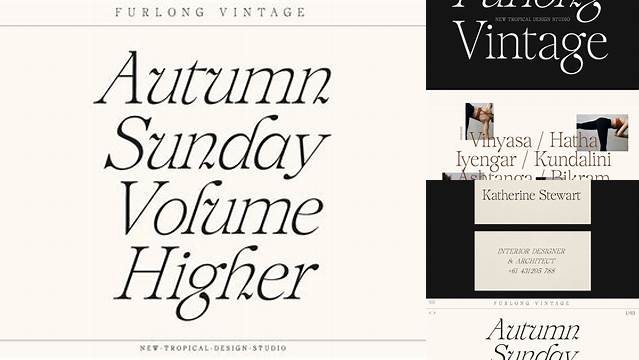
Hey everyone! 👋 Today, we're diving headfirst into the wonderful world of typography and, specifically, the ever-popular Furlong Vintage Font. This article is your ultimate guide to snagging the Furlong Vintage Font for free, understanding its charm, and unleashing its potential in your creative projects. Whether you're a seasoned designer, a newbie enthusiast, or just someone curious about cool fonts, you're in the right place. So, buckle up, and let's get started!
1. What Makes the Furlong Vintage Font Special? ✨
Alright, guys, let's talk about what makes the Furlong Vintage Font so darn appealing. It's got that classic, timeless vibe that instantly adds a touch of nostalgia and sophistication to any design. Think old-school signage, retro posters, and anything with a handcrafted feel. The font itself is designed to evoke a sense of the past, with its carefully crafted letterforms and unique character. It's not just a font; it's a statement. The Furlong Vintage Font comes packed with a variety of styles, allowing for flexibility in your projects. You can use it for headlines, body text, logos, and branding materials. Its versatility is one of its strongest assets. With its distinct serifs and slightly condensed appearance, it offers a perfect balance between legibility and stylistic flair. This means your text will be easy to read while still looking incredibly stylish. The Furlong font embodies the spirit of vintage design with a modern twist. It is perfect for capturing the essence of a bygone era while still remaining contemporary. The design inspiration behind the Furlong Vintage Font is rooted in the aesthetics of classic typography. It draws inspiration from vintage posters, advertisements, and signage from the early to mid-20th century. Its creators paid meticulous attention to detail, ensuring every curve and line contributes to its overall vintage feel. When you download and use the Furlong Vintage Font, you're not just getting a font. You're getting a piece of design history. This font breathes life into your projects, creating a sense of authenticity and visual appeal. The meticulous design of Furlong allows it to create a strong impact while remaining approachable. Its versatility makes it appropriate for both small snippets of text and large display headers. The Furlong Vintage Font is more than just a font; it is a design tool that helps communicate with your audience in a way that resonates with a sense of nostalgia and craftsmanship. The elegance and charm of the Furlong Vintage Font is what makes it really stand out from other fonts. The creators have put in a lot of effort to capture the essence of vintage design, with its character to bring charm and sophistication into the modern designs. This font is suitable for making your creative projects stand out. Overall, the Furlong Vintage Font is a great way to inject that vintage feel into your designs and is a fantastic addition to any designer's toolkit.
3. Exploring the Different Styles of Furlong Vintage Font 🎨
Okay, so you've found the Furlong Vintage Font and are ready to roll. But did you know it usually comes in different styles? This versatility is one of the things that makes the font so great. Typically, you'll find it in a few distinct variations, allowing you to tailor your typography to the specific needs of your project. You might find a regular style, which is your basic, go-to version. It provides a clean, readable base for your text. Then there's often a bold version, perfect for headlines and emphasis. Its thicker strokes make it really pop, grabbing the reader's attention. You might also find a condensed or a more extended version of the font, which affects the letter spacing and overall appearance. Condensed styles work great for tight spaces, whereas extended styles can give a more spacious feel. The beauty of these different styles is that they let you create visual hierarchies and add depth to your designs. You can use different styles of the Furlong Vintage Font to create a sense of visual interest, helping to guide the viewer's eye and highlight important elements. When you're choosing your style, think about the overall tone of your project. For example, a regular style might be ideal for body text, providing a simple and readable foundation. Meanwhile, a bold style would be great for attention-grabbing headlines or calls to action. The various styles available in the Furlong Vintage Font allow you to adapt its look to fit different design needs. Whether you're creating a logo, a poster, a website, or any other creative project, having different styles gives you the flexibility you need to make your vision a reality. Don't hesitate to experiment with different styles to discover what works best for your project. There is a great chance you will be amazed at the variety of designs that you can produce from the Furlong Vintage Font.
3.1 Furlong Vintage Font Regular
The Furlong Vintage Font Regular is the foundational style of this classic typeface. It's the bread and butter, the workhorse of your design toolkit, providing a clean and consistent look that's perfect for a variety of applications. This style typically features a standard weight and letter width, making it easily readable in a wide range of sizes. It is designed to offer a perfect balance between elegance and readability. It allows you to create beautiful and clear designs without sacrificing the classic vintage feel. The Furlong Vintage Font Regular is well-suited for body text, ensuring that your message is easily accessible and enjoyable to read. It can also be used for headings and subheadings, providing a subtle yet impactful visual hierarchy. The primary characteristic of the Furlong Vintage Font Regular is its timeless aesthetic. The design captures the essence of vintage typography while remaining adaptable to modern design needs. The clean lines and traditional letterforms add a touch of sophistication. This makes it a versatile option for various projects. Whether you are working on a website, a poster, or any other type of creative project, this font style provides a reliable and elegant base. The Furlong Vintage Font Regular stands out because it offers a high degree of legibility and sophistication, providing a balanced combination of usability and visual charm. This style is appropriate for any context, whether you are building a brand or designing invitations. With the Furlong Vintage Font Regular, you get a consistent and pleasing aesthetic that gives you the freedom to concentrate on your content. Its adaptable design allows it to work well across various applications. The Furlong Vintage Font Regular is an integral part of the Furlong family, representing the core design and elegance of this font. It is the first option to start with, giving you a strong foundation and opening the door to numerous creative possibilities.
3.2 Furlong Vintage Font Bold
When you need your message to really stand out, the Furlong Vintage Font Bold steps up to the plate. This version takes the core design of the regular style and amps it up with heavier strokes, giving it a more prominent and eye-catching presence. The bold style is all about making a statement. The increased weight of the font draws attention, making it perfect for headlines, titles, and any text element that needs to grab the reader's attention. The Furlong Vintage Font Bold isn't just about being thick; it's about adding emphasis and creating a strong visual impact. It complements the regular style perfectly, creating a visually balanced design. The boldness of this font ensures that it grabs the viewer's attention without overwhelming the design. This is a very important feature when creating a design. The use of the Furlong Vintage Font Bold should be strategic. It's most effective when used sparingly, to highlight key information and guide the reader's eye. This strategic use helps to create a design hierarchy that is both functional and visually pleasing. Using this style allows designers to add emphasis and structure to their text, making it easier for readers to find the information they need. The strong strokes of the Furlong Vintage Font Bold provide a sense of confidence and authority to your designs. It works wonders in headlines, logos, and other areas where you need to make a powerful impression. The Furlong Vintage Font Bold is a valuable tool in any designer's toolkit. Its ability to add emphasis and visual impact makes it an essential element for effective communication. It ensures that your message is not just read but remembered. This makes the Furlong Vintage Font Bold a versatile and valuable tool for anyone looking to make a bold statement in their designs. The bold style is a very good choice when the main goal is to capture the user's attention quickly.
3.3 Furlong Vintage Font Italic
For adding a touch of elegance, flair, and a vintage touch, the Furlong Vintage Font Italic is your go-to choice. This style takes the classic letterforms and introduces a graceful slant, giving it a dynamic and artistic feel. The italicized version of the Furlong Vintage Font offers a subtle yet effective way to change the visual style of your text. It adds a sense of motion and sophistication that can make your designs come alive. The slight slant of the letters creates a sense of flow, making it perfect for emphasis and adding visual interest. The Furlong Vintage Font Italic is not only visually appealing but also versatile in its application. It is perfect for adding emphasis, such as in quotes, titles, or specific phrases that you want to highlight. Its elegant slant can add a touch of sophistication to your designs. The italic style also works well for body text, particularly when used sparingly. It can be used to provide a visual break from the regular font style and add a touch of visual variety. This font is best for creating a dynamic and refined look in your projects. It is the go-to style for creating a dynamic and refined look in your projects. The italicized letters create a subtle, eye-catching effect that enhances the overall aesthetic appeal. The Furlong Vintage Font Italic is an excellent way to add a touch of personality and elegance to your designs, making them stand out and leaving a lasting impression. The Furlong Vintage Font Italic adds a layer of personality and elegance. It brings a fresh perspective to your design. The italic style is a key element for creating stunning designs. With its dynamic and unique design, it is an asset for creating eye-catching designs. It is the perfect way to make your creative projects stand out.